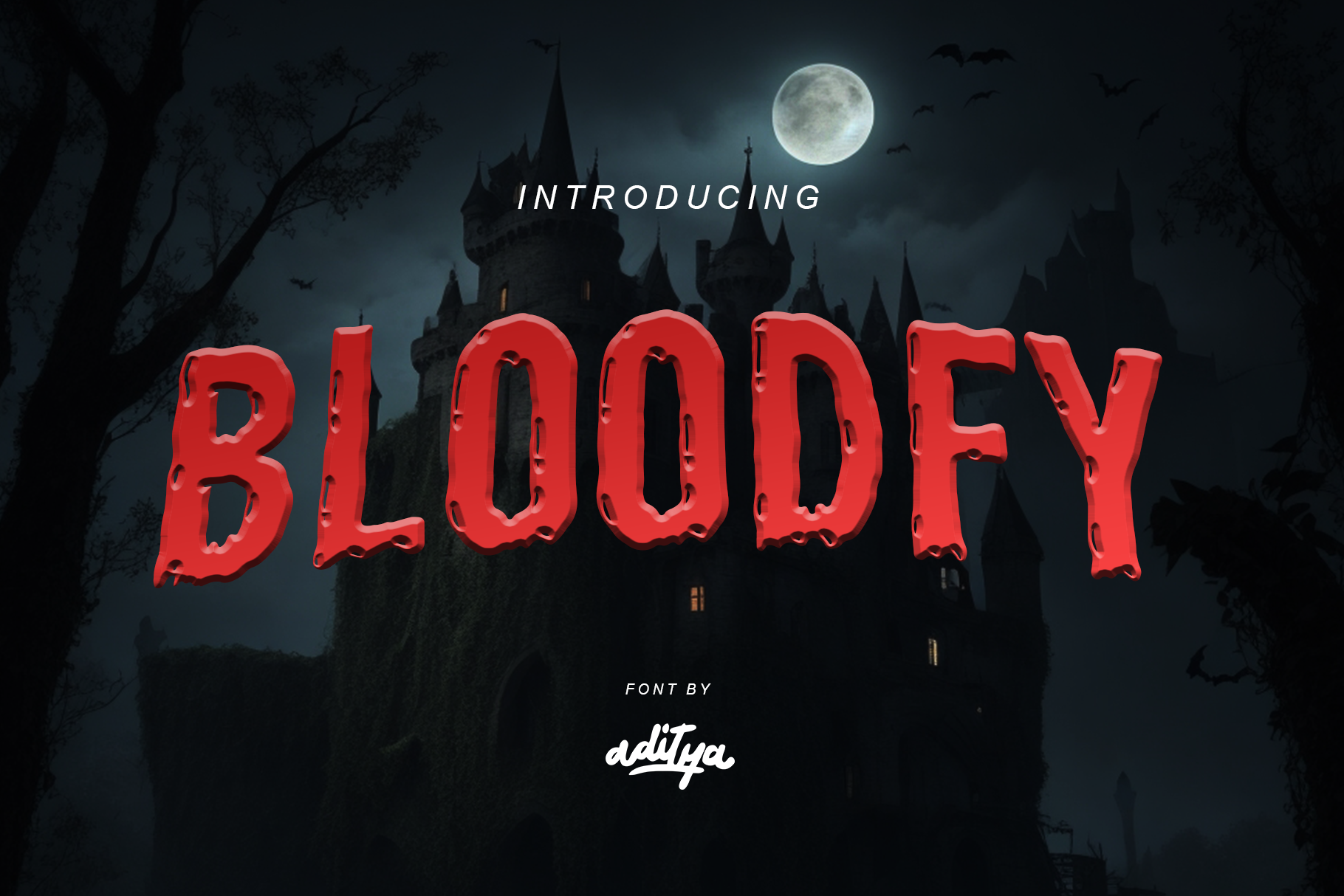
BLOODFY - Horor Font
Bloodfy v1.0 is a font that is suitable for a Halloween theme. You can use this font for movie poster titles, event posters, or whatever.
- Only Uppercase glyphs